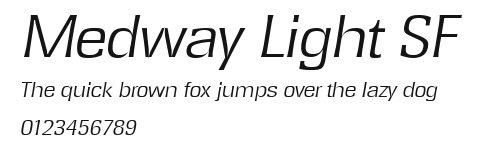
Medway Light SF Preview
About Medway Light SF.ttf
Medway Light SF.ttf is a modern, elegant sans-serif font designed for ultimate readability and visual harmony. Perfect for branding, headlines, web design, and print materials.